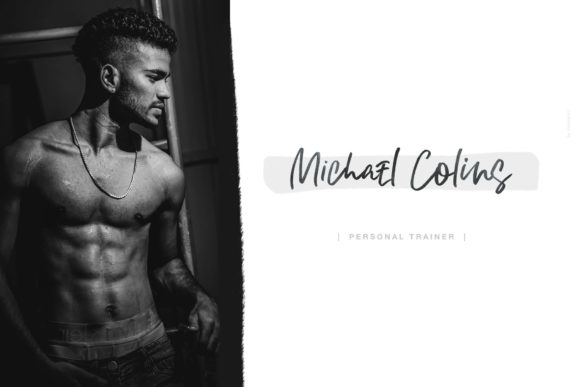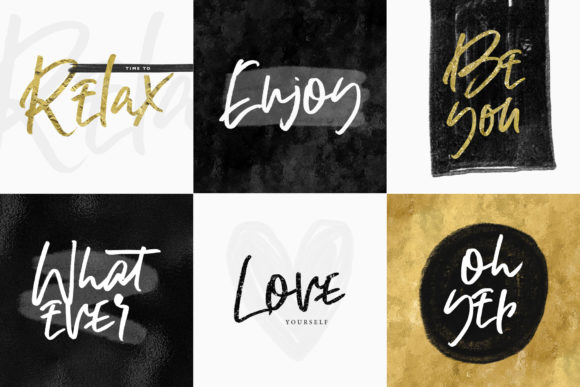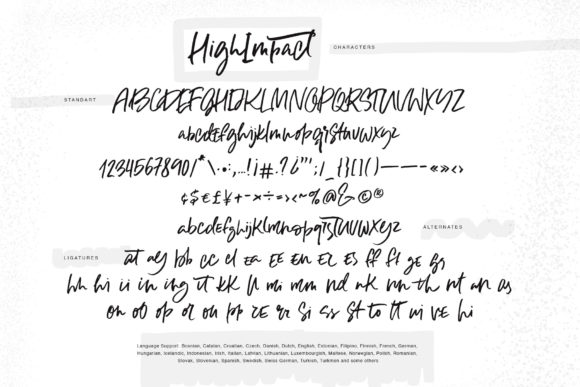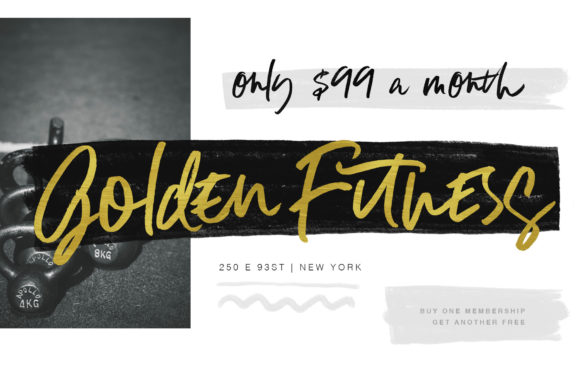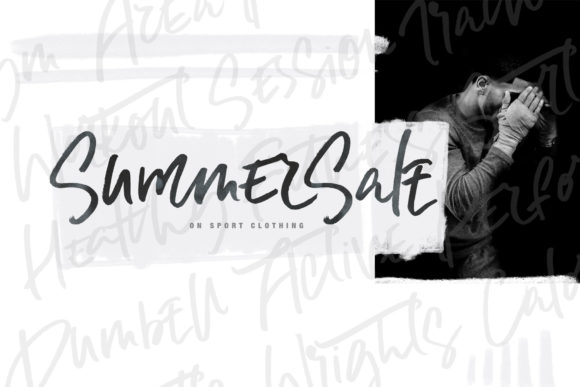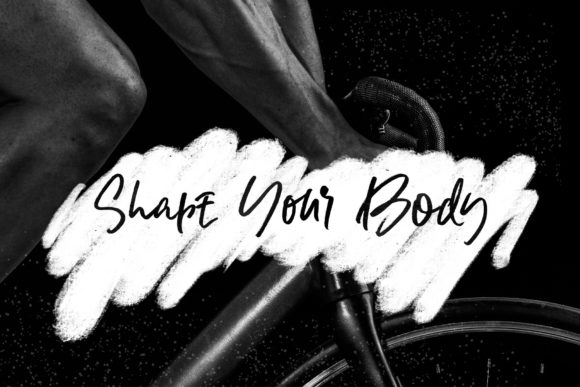
The Power of High Impact: A Charming Script Font
Have you ever been in the middle of a design project, and suddenly, you’re stuck on finding the perfect font? I recall a recent experience where I was working on a branding project for a boutique store, and I just couldn’t find a script font that captured the playful yet elegant vibe I was going for. That’s when I stumbled upon High Impact, a lovely script font that has since become a staple in my design toolkit.
A Personal Review of High Impact
I’m excited to share my honest review of High Impact, a font that has quickly become a favorite of mine.
- ✨ Charming, playful characters that seem to dance along the baseline
- 💫 Highly legible, even at smaller font sizes
- 🎨 Versatile and suitable for a wide range of design projects, from branding to invitations
While High Impact is an excellent font, there are a few minor quirks to be aware of:
- ⚠️ Some users may find the font’s playful nature too informal for certain projects
- 🤔 Limited support for non-English characters
- Experiment with OpenType features, such as swashes and stylistic alternates, to add visual interest
The Story Behind High Impact
While the origins of High Impact are unclear, it’s easy to imagine that the designer was inspired by the world of dance and movement. The font’s playful characters seem to leap and twirl along the baseline, evoking the carefree spirit of a summer day.